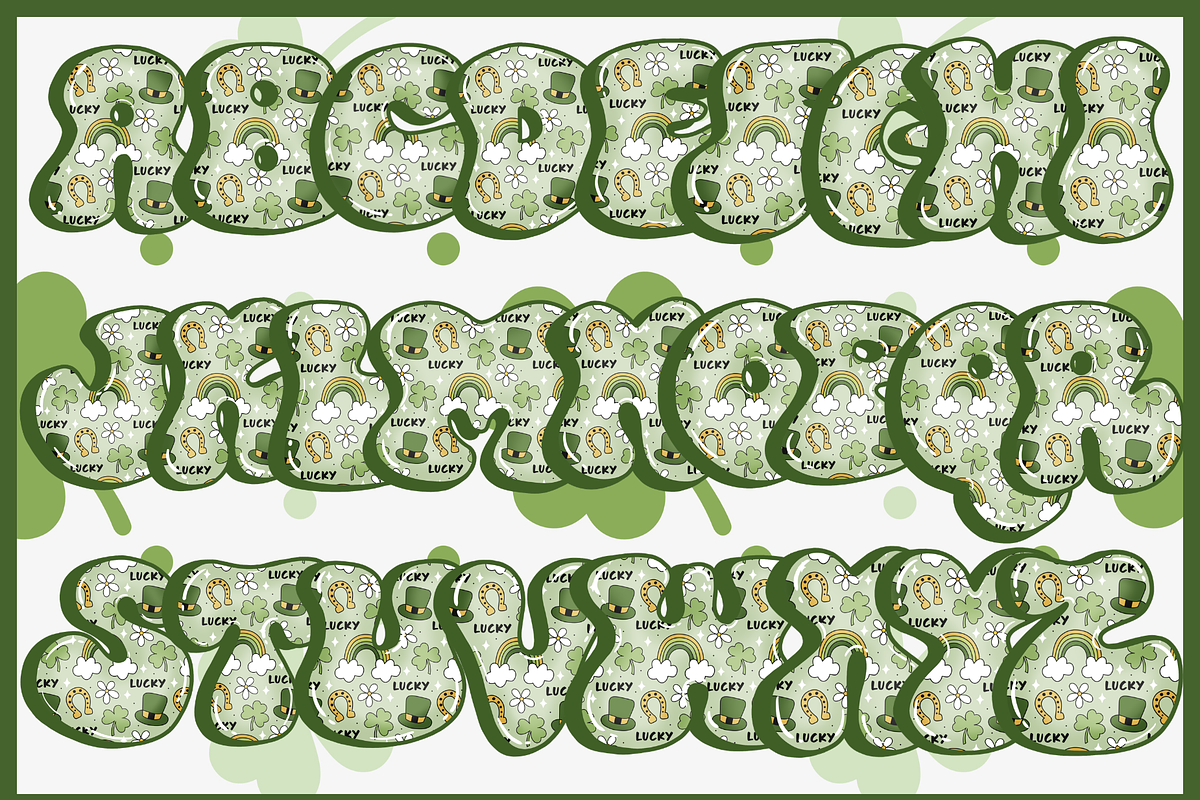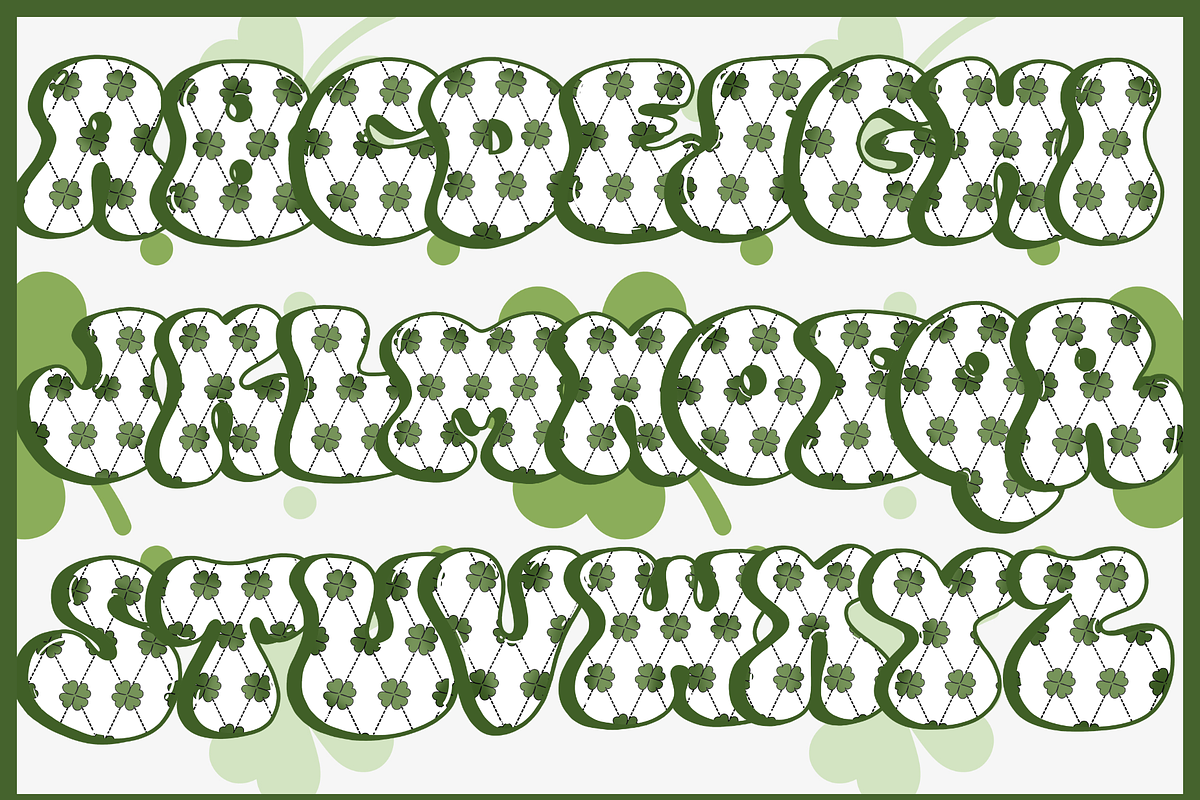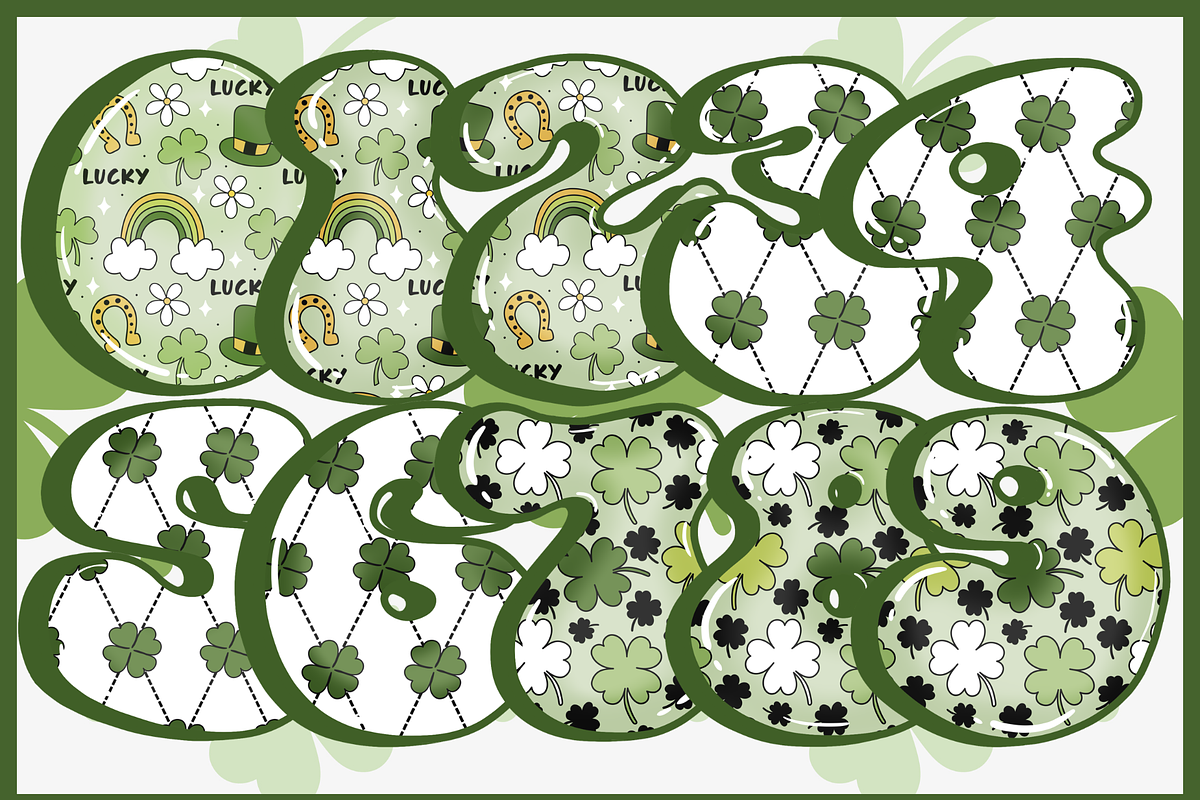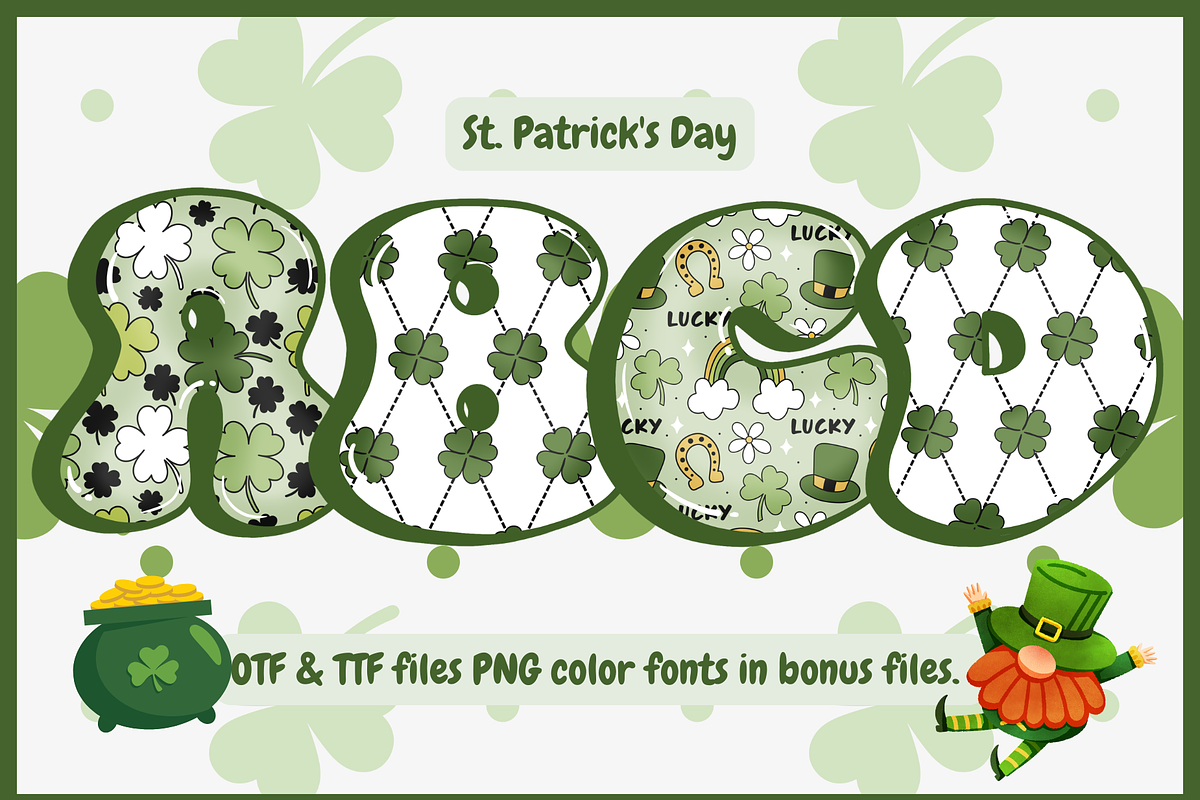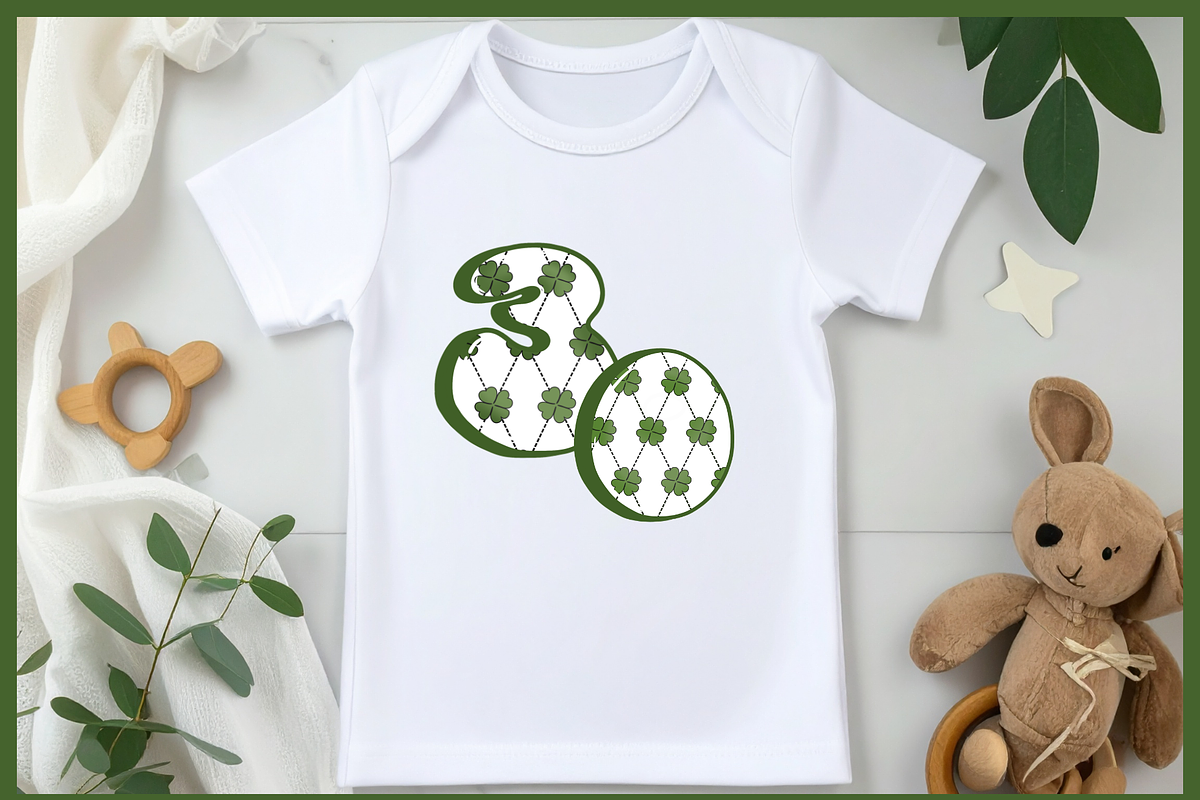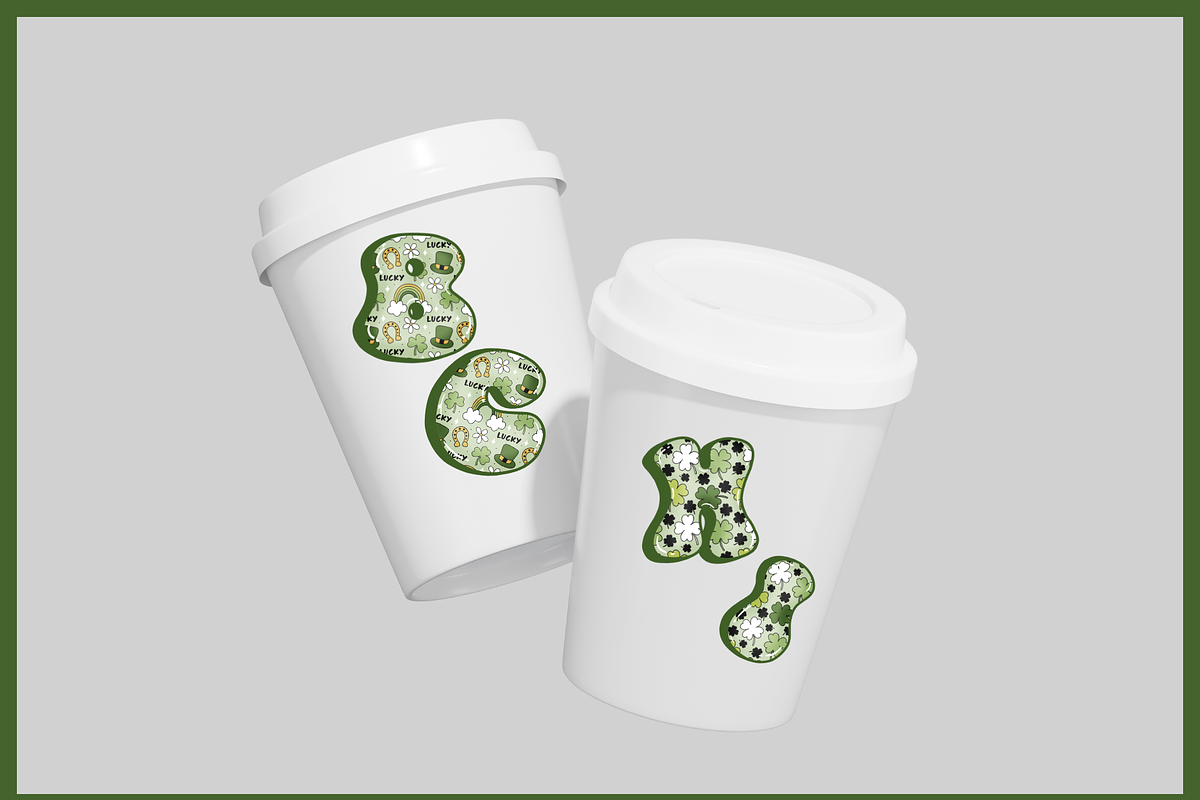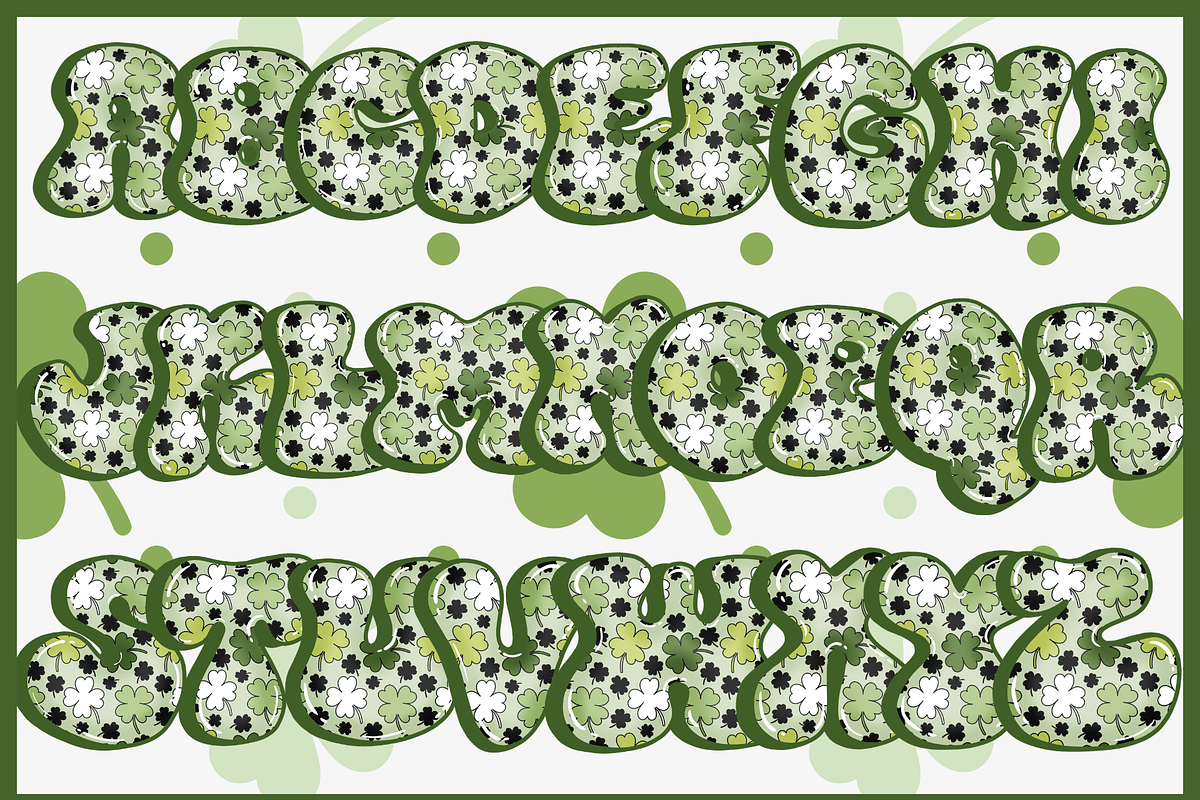
St. Patrick's Day Retro Bubble Font
St. Patrick’s Day Shamrock Bubble Font – OTF, TTF & PNG Color Font
Celebrate the spirit of St. Patrick’s Day with this adorable and playful Shamrock Bubble Font, designed with charming clover patterns and festive green tones. This font brings a fun, lucky, and eye-catching style that is perfect for holiday-themed projects, especially for St. Patrick’s Day designs.